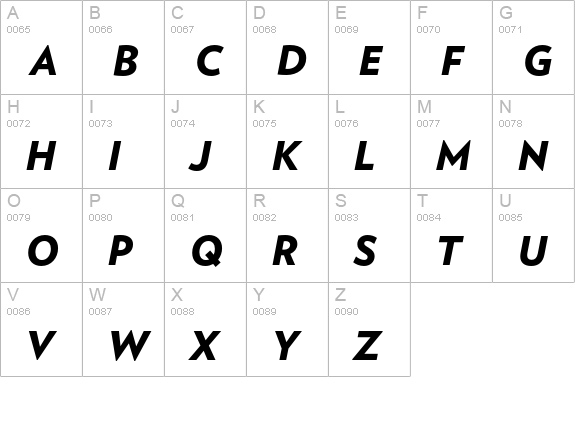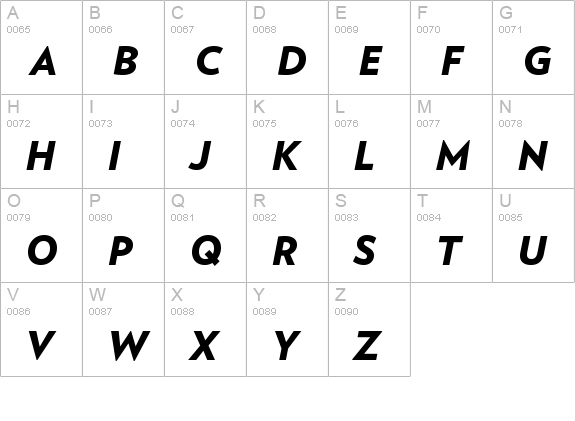
Verlag Black Italic is a maximum-weight, dramatic, italic variant in the Verlag typeface family \xE2\x80\x94 well suited to maximum-impact headlines, posters, and packaging.
Verlag Black Italic font is a bold and elegant typeface that exudes sophistication and modernity. Its sleek italic style adds a touch of flair to any design project, making it perfect for headlines, logos, and editorial layouts. The sharp, angular letterforms create a striking visual impact while maintaining readability. What sets Verlag Black Italic font apart is not just its stylish design, but also the fact that it is available for free download at FontsMarket.com. This means you can easily access this high-quality typeface without any cost, allowing you to elevate your designs without breaking the bank. Whether you're working on a branding project, a poster design, or a website layout, Verlag Black Italic font is a versatile choice that will help you make a bold statement. Download it for free today and add a touch of sophistication to your next project.